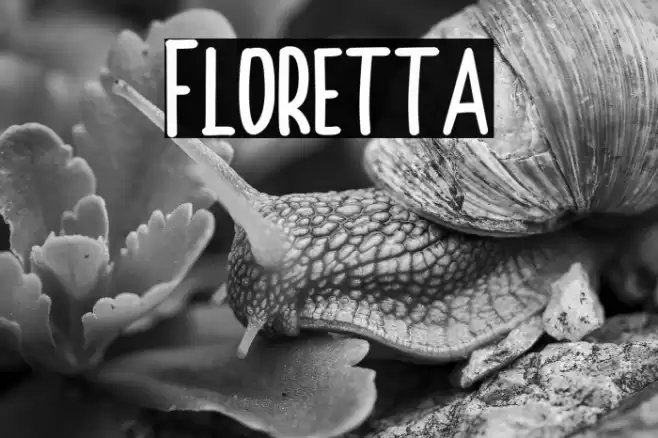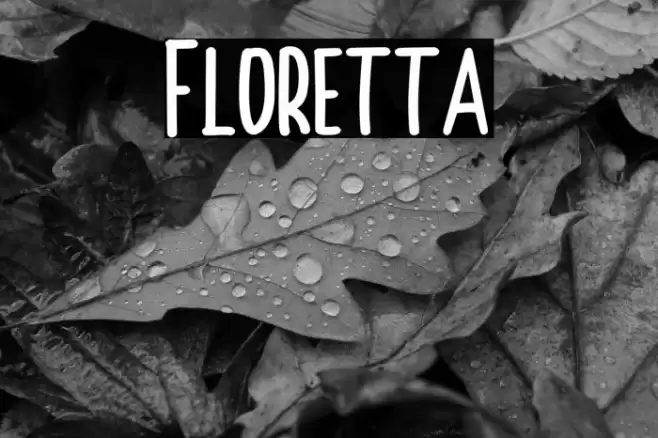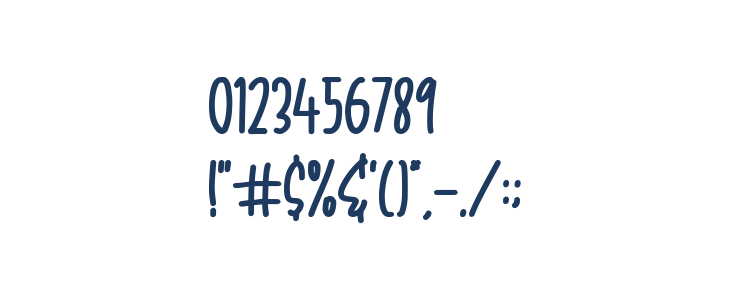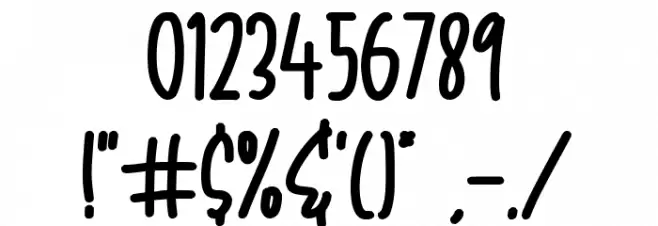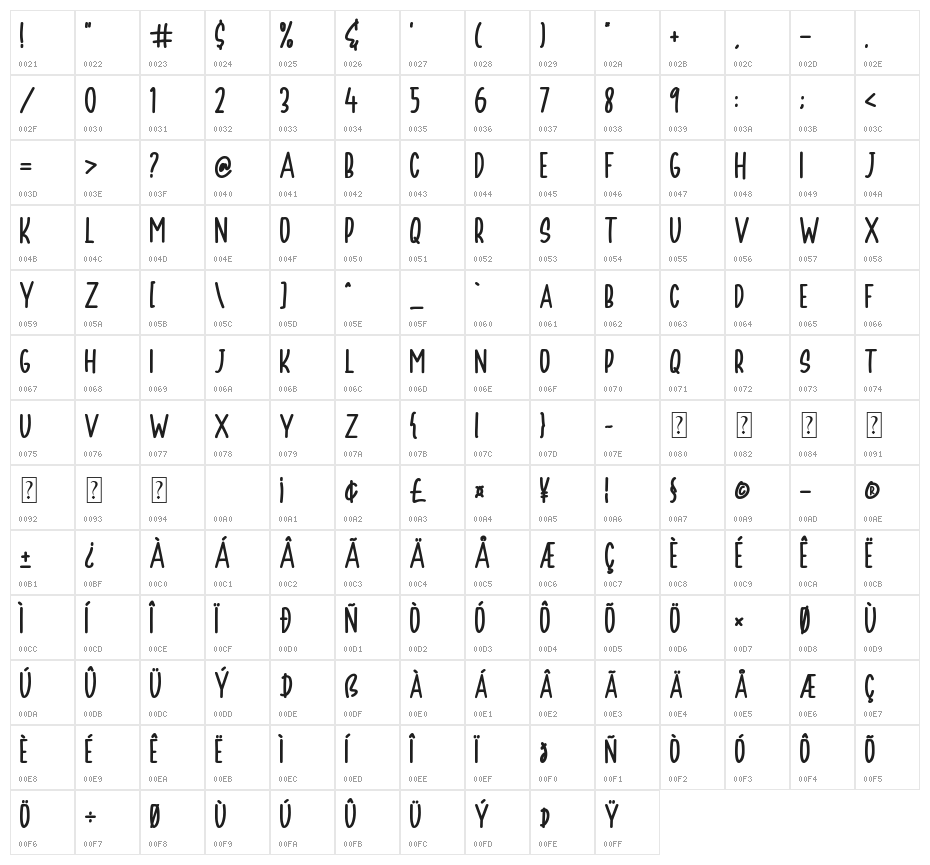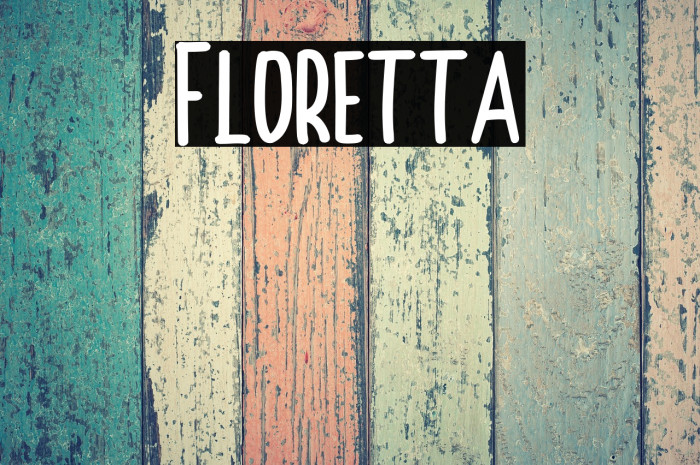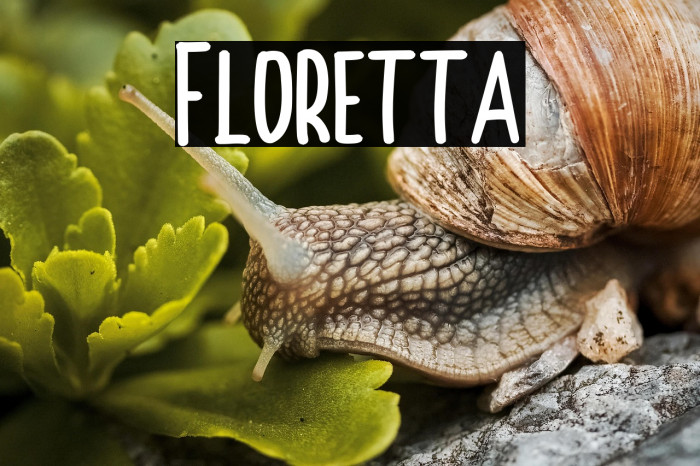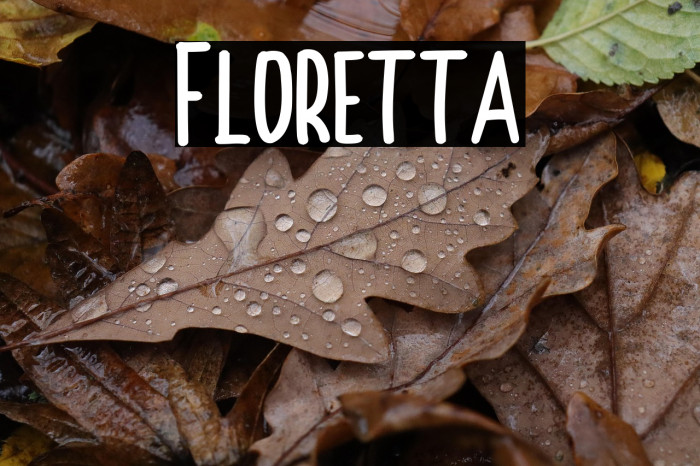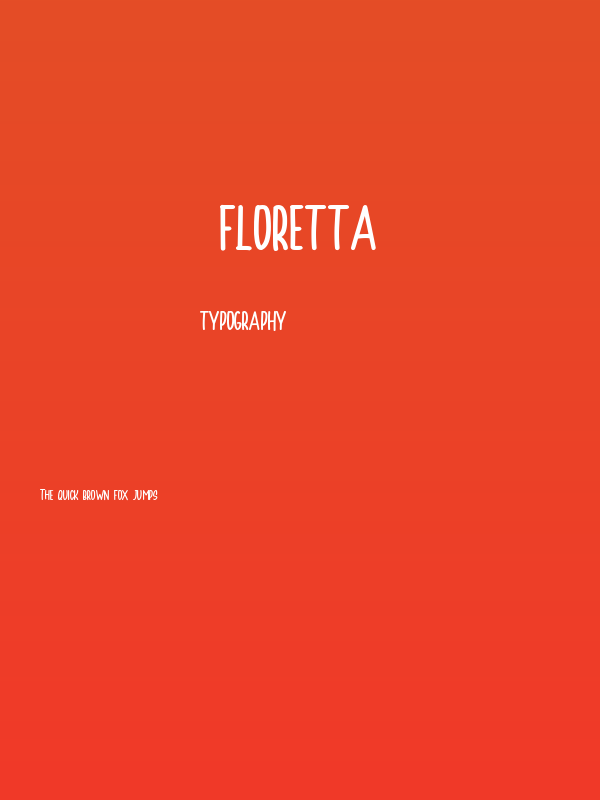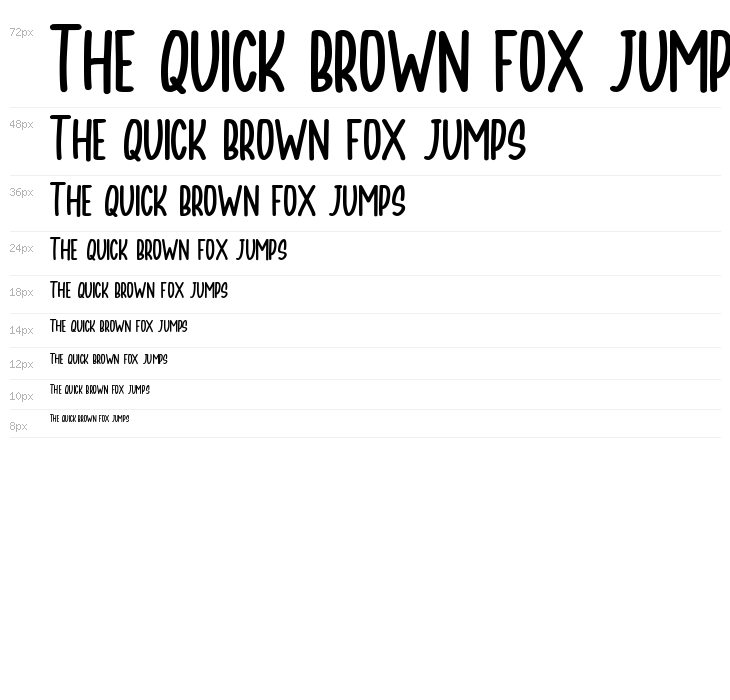
Floretta Font
Floretta Description
This font features a playful and casual handwritten style, characterized by its smooth, rounded edges and consistent stroke width. The uppercase letters are bold and slightly elongated, giving them a friendly and approachable appearance. The lowercase letters maintain a similar style, ensuring readability and coherence. The numerals are clear and distinct, matching the overall aesthetic of the alphabet. Special characters are well-integrated, maintaining the font's whimsical and informal tone. This font is perfect for projects that require a personal touch, such as invitations, greeting cards, or playful branding.
A playful, casual handwritten font with smooth, rounded edges and consistent stroke width from Regular fonts.
- Proposed Projects: Ideal for invitations, greeting cards, playful branding, and personal projects.
- Overall Style: Casual, Playful
- Use Case: Headlines, Logos, Invitations